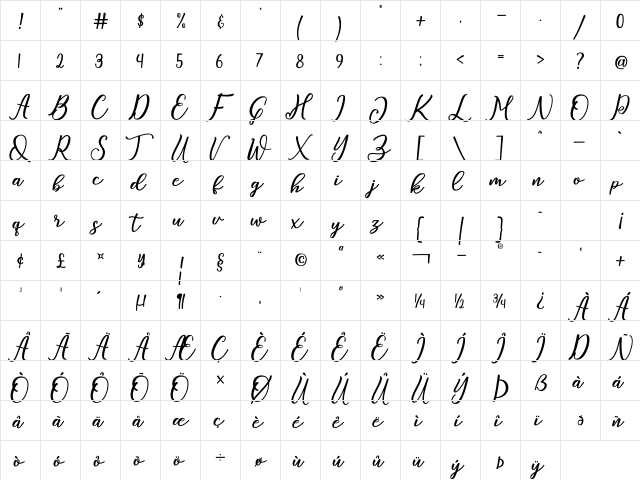
Window Regular
| Foundry | Madatype Studio |
| Designer | Andri Ardianto + Madatype Studio |
Design Context for Window Typeface
Window is a composed and adaptable typeface that performs quietly and consistently across a wide range of design contexts.